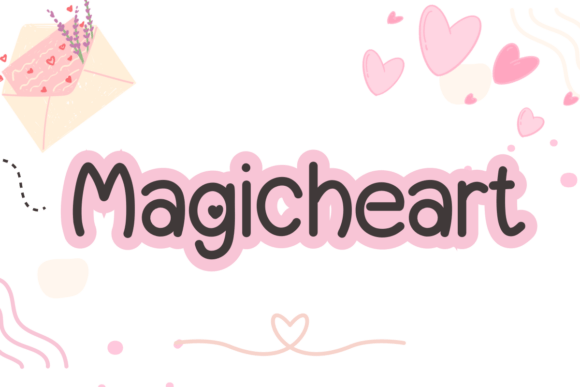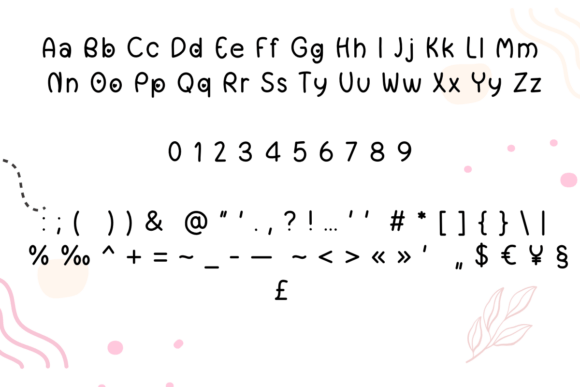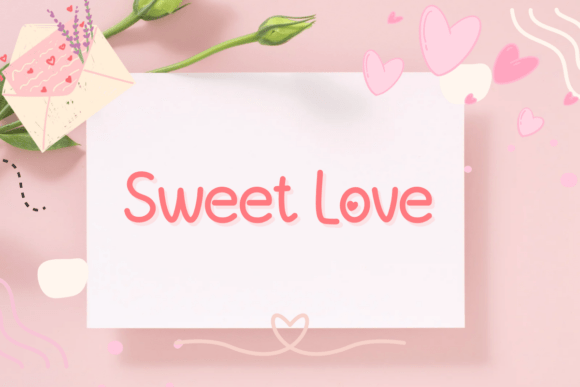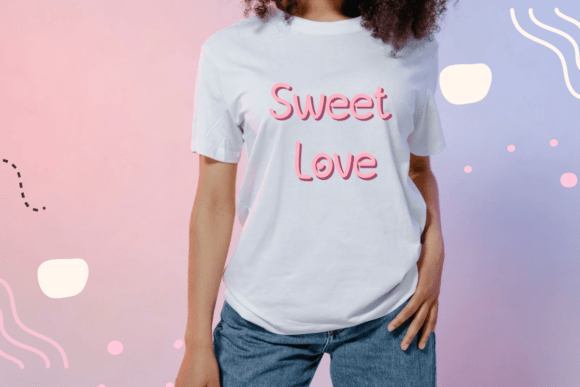
Magicheart Font: A Cute Handwritten Font for Cricut & Social Media Design
About the Magicheart Font
Unleash your creativity with Magicheart Font, a versatile font perfect for a wide range of applications. Magicheart- Handwritten Font
A charming and neat handwritten font, perfect for all your creative projects!
This font is ideal for social media posts, digital planners, crafting projects, and more. It works seamlessly with Procreate, Adobe programs, Canva Pro, and various other design applications.
Whether you’re designing for shirts, stickers, branding, greeting cards, Cricut projects, SVG files, or posters, this font adds a personal touch to any project!
Magicheart’s charming, slightly informal style shines in headlines, short text blocks on packaging, and social media graphics. Its handcrafted feel makes it perfect for branding projects targeting a younger demographic or those emphasizing a handmade, artisanal quality. Avoid using it for body text or lengthy paragraphs; its legibility suffers at smaller sizes.
Pairing Magicheart with a clean sans-serif like Open Sans for body copy creates a balanced contrast. For a more playful approach, consider a geometric sans-serif like Futura. A classic serif like Garamond can add sophistication if a more formal feel is needed, grounding the handwritten informality of Magicheart.
Magicheart projects a friendly, approachable personality, conveying warmth and a handmade aesthetic. It’s best suited for brands that want to communicate authenticity and a personal touch, but should be used judiciously to avoid overwhelming the design.
Magicheart Font Usage Examples
Magicheart Font Example